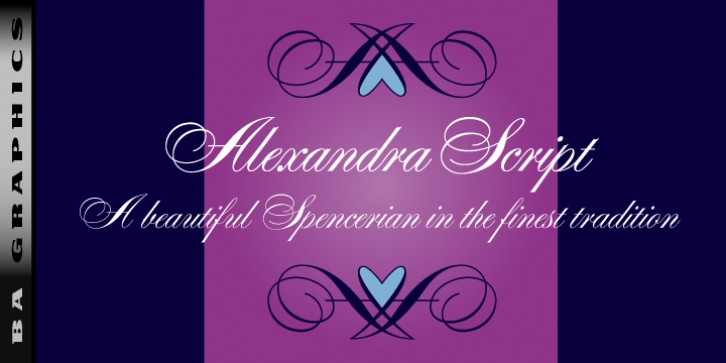
Bob Alonso
BA Graphics
Alexandra Script
is a beautiful Spencerian in the finest tradition.
This script will lend that exquisite look to all your fine designs.